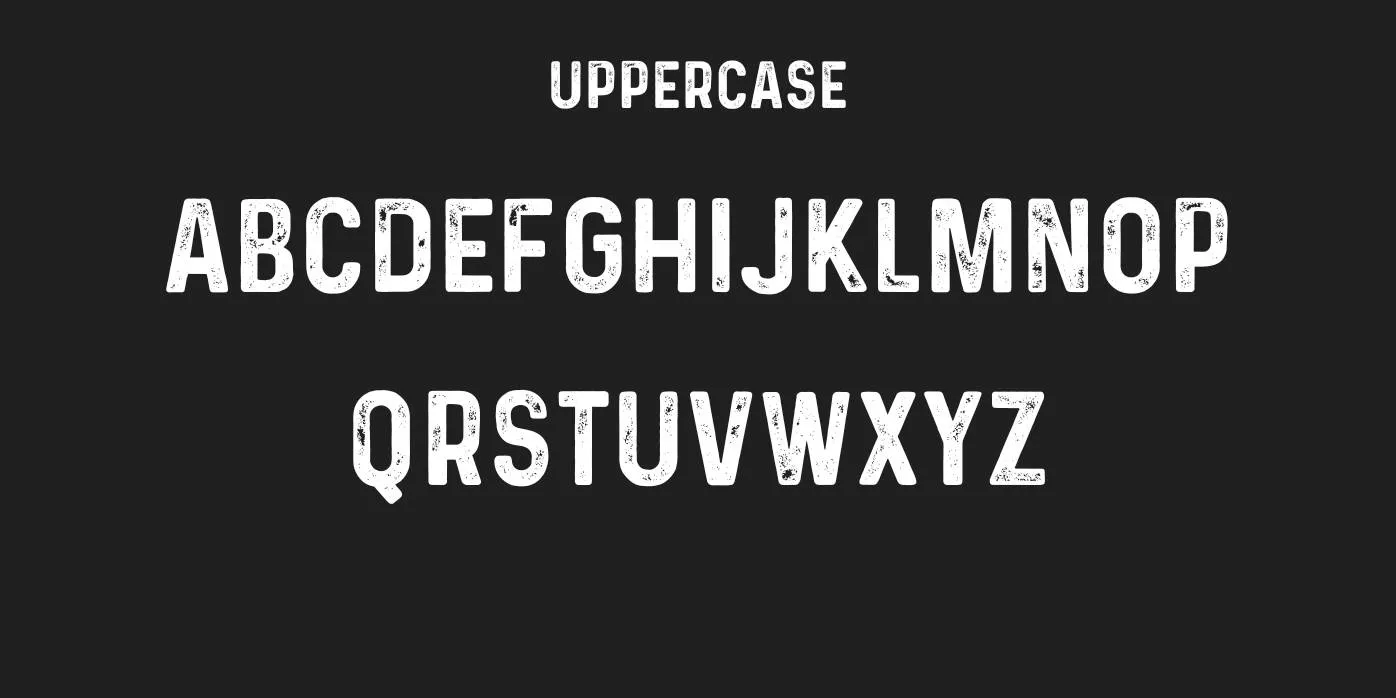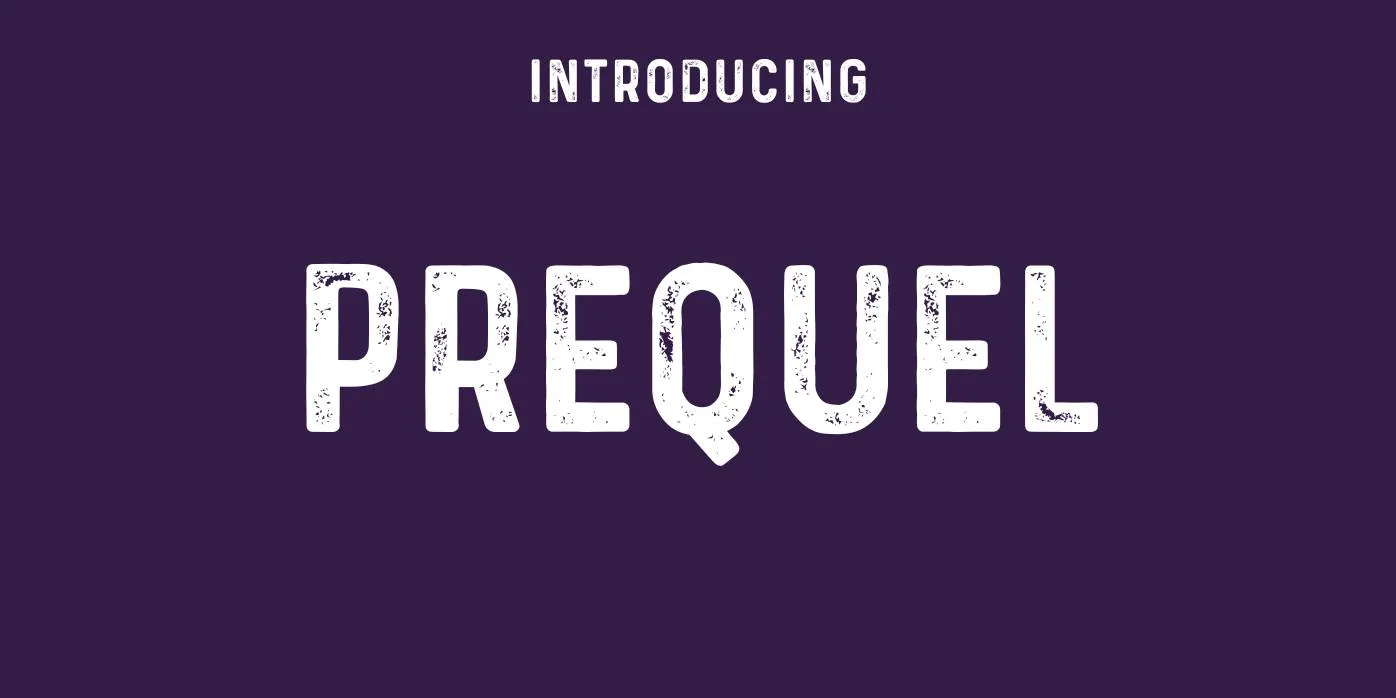
Prequel Font
Prequel Font was inspired by the old Sequel font with new features. It was designed by Phitra Designs. The designer of the font was Philip Trautmann. The weight of the font is medium (normal) and the width of the font is Semi-condensed.